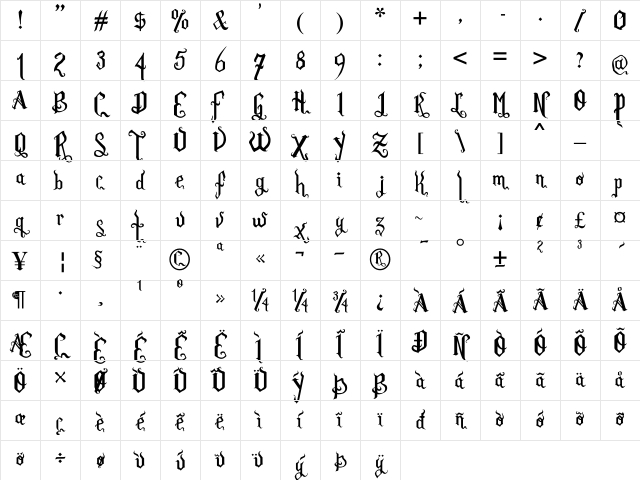
Romance Fatal Goth is a composed and adaptable typeface that performs quietly and consistently across a wide range of design contexts.
Pro Tip: Use Romance Fatal Goth in both headline and body roles to test its range before committing to a single application.